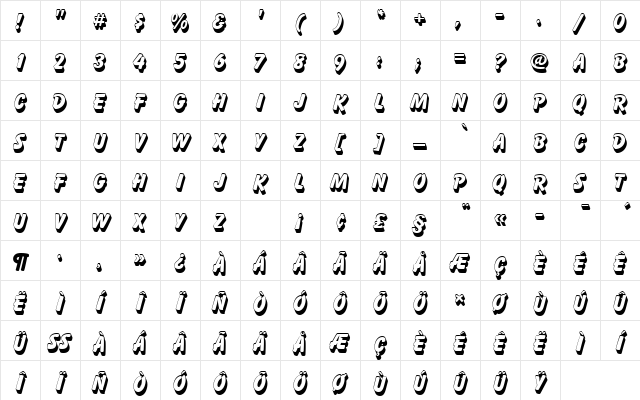
Complete BalloonDExtBolSh1 Regular glyph index. Displaying only characters natively supported by BalloonDExtBolSh1 Regular font.
BalloonDExtBolSh1 is a composed and adaptable typeface that performs quietly and consistently across a wide range of design contexts.